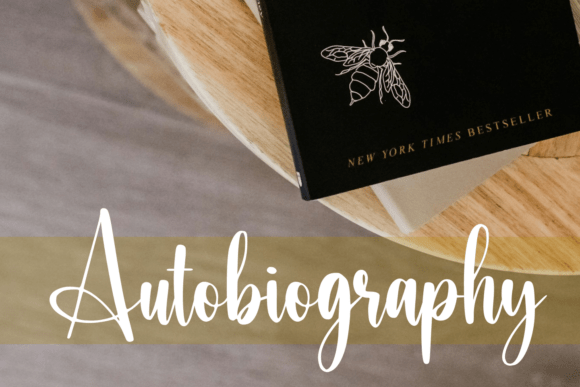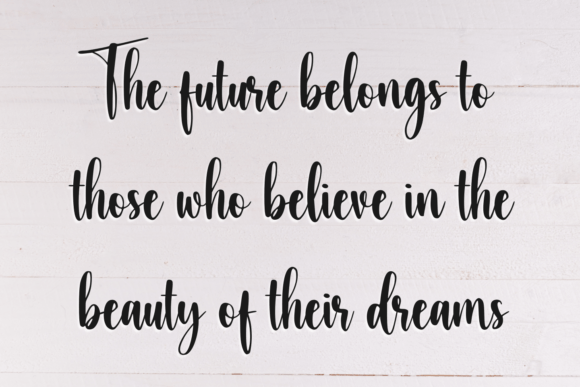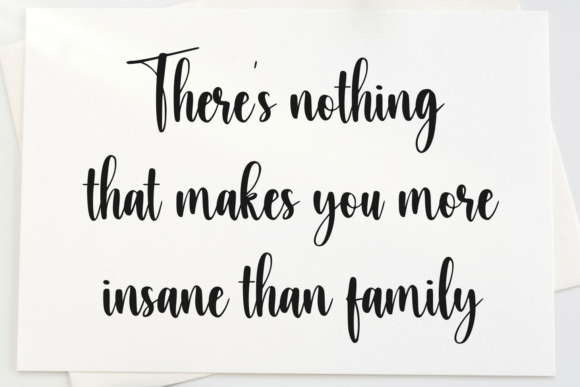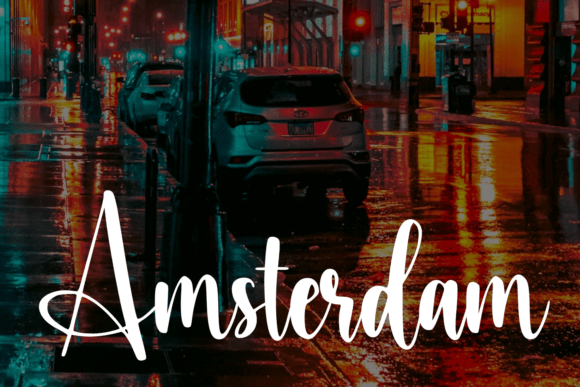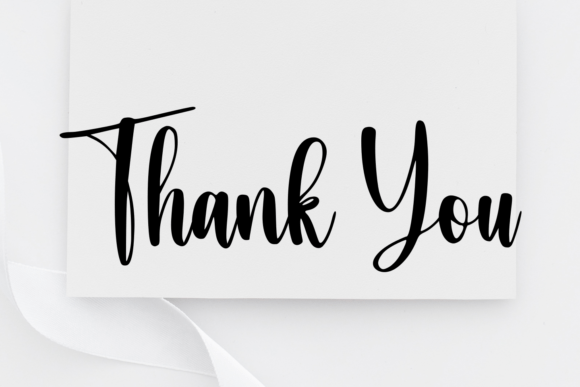
Introducing Firstlove Font: The Epitome of Simple Elegance
In the world of typography, few fonts manage to capture the essence of quiet elegance and honest expression as beautifully as Firstlove Font. This simple calligraphy script is a breath of fresh air, celebrating the beauty of uncomplicated handwriting with clean strokes, smooth connections, and a natural flow that feels sincere and approachable.
The Inspiration Behind Firstlove
Firstlove Font draws its inspiration from the simplicity and authenticity of everyday handwriting. In an era where digital communication often dominates, the charm of handwritten notes and letters can be easily overlooked. However, Firstlove seeks to bring back that personal touch, offering a font that embodies warmth, sincerity, and a sense of closeness.
At the heart of Firstlove’s design are its gently curved letterforms, crafted with balanced spacing to create a calm and airy personality. Unlike some script fonts that rely on excessive swashes or dramatic contrast to make an impact, Firstlove adopts a more understated approach. By avoiding these elements, the font allows the simplicity and elegance of each character to shine through, creating a neat yet warm appearance.
One of the standout features of Firstlove Font is its versatility. Its clean and approachable design makes it suitable for a wide range of applications, from romantic quotes and minimalist branding to invitations, journals, packaging, and social media graphics. Whether you’re looking to add a personal touch to your wedding invitations or craft a compelling brand story, Firstlove blends effortlessly into both modern and classic layouts.
Perfect for Everyday Design Needs
Firstlove’s design strikes the perfect balance between being personal and professional. This makes it an excellent choice for designers and crafters looking for a font that can add a soft, handwritten touch to their projects without overpowering the message. Its neatness and legibility ensure that it remains clear and readable, even in smaller sizes or when used for longer texts.
Applications of Firstlove Font
- Romantic Quotes and Invitations: Add a touch of elegance and warmth to your wedding invitations, Valentine’s Day messages, or any romantic correspondence.
- Minimalist Branding: Infuse your brand with a sense of sincerity and approachability, perfect for businesses looking for a friendly and personal voice.
- Journals and Planners: Enhance your personal or professional journals and planners with a font that feels both personal and sophisticated.
- Packaging: Elevate your product packaging with a handwritten touch that connects with customers on a more personal level.
- Social Media Graphics: Stand out on social media with eye-catching graphics that combine modern aesthetics with a warm, personal feel.
Why Choose Firstlove Font?
In a digital landscape filled with bold and dramatic typography, Firstlove Font offers a refreshing alternative. Its quiet elegance, honest expression, and versatility make it a valuable addition to any designer’s toolkit. Whether you’re crafting a brand identity, creating personal stationery, or designing engaging social media content, Firstlove provides the perfect blend of simplicity, warmth, and sophistication.
Firstlove Font is more than just a typeface; it’s a way to communicate with warmth, sincerity, and elegance. By choosing Firstlove, designers and crafters can bring a touch of genuine emotion and personal connection to their work, making their messages more impactful and memorable. With its broad range of applications and effortless integration into various design contexts, Firstlove Font is poised to become a beloved choice for those seeking to add a soft, handwritten touch to their projects.